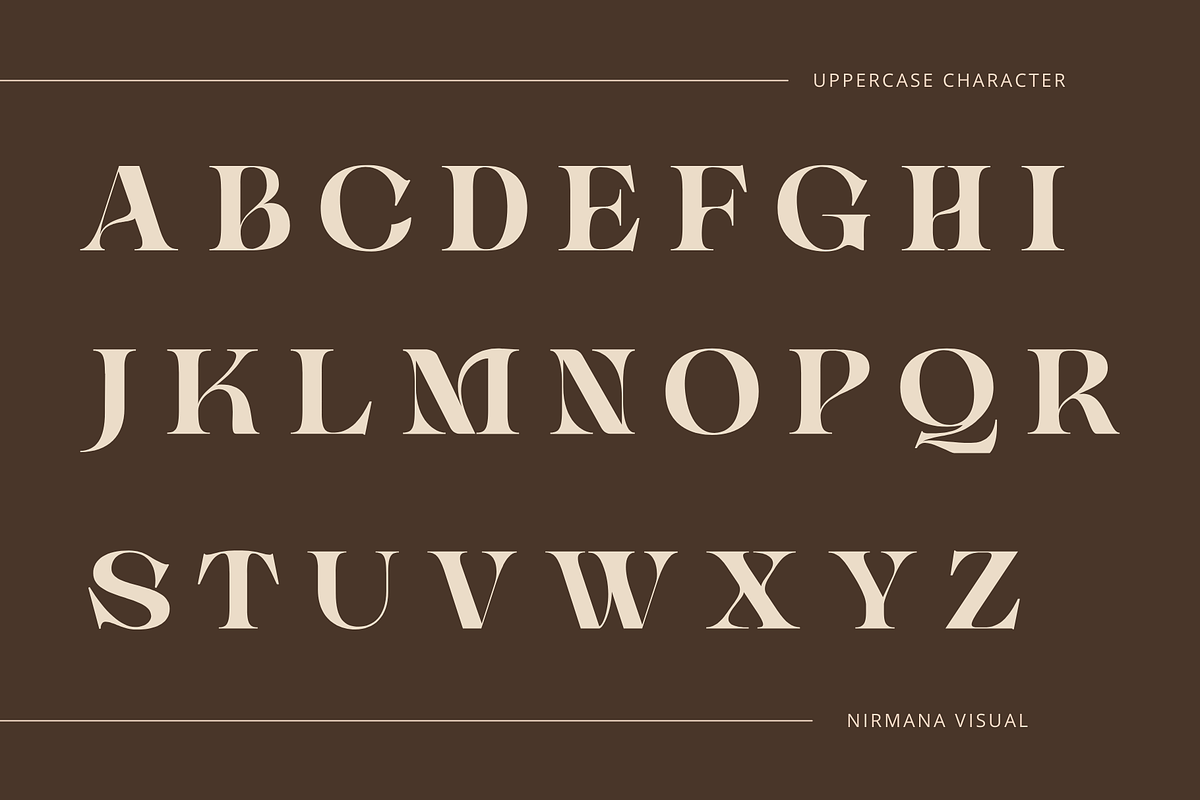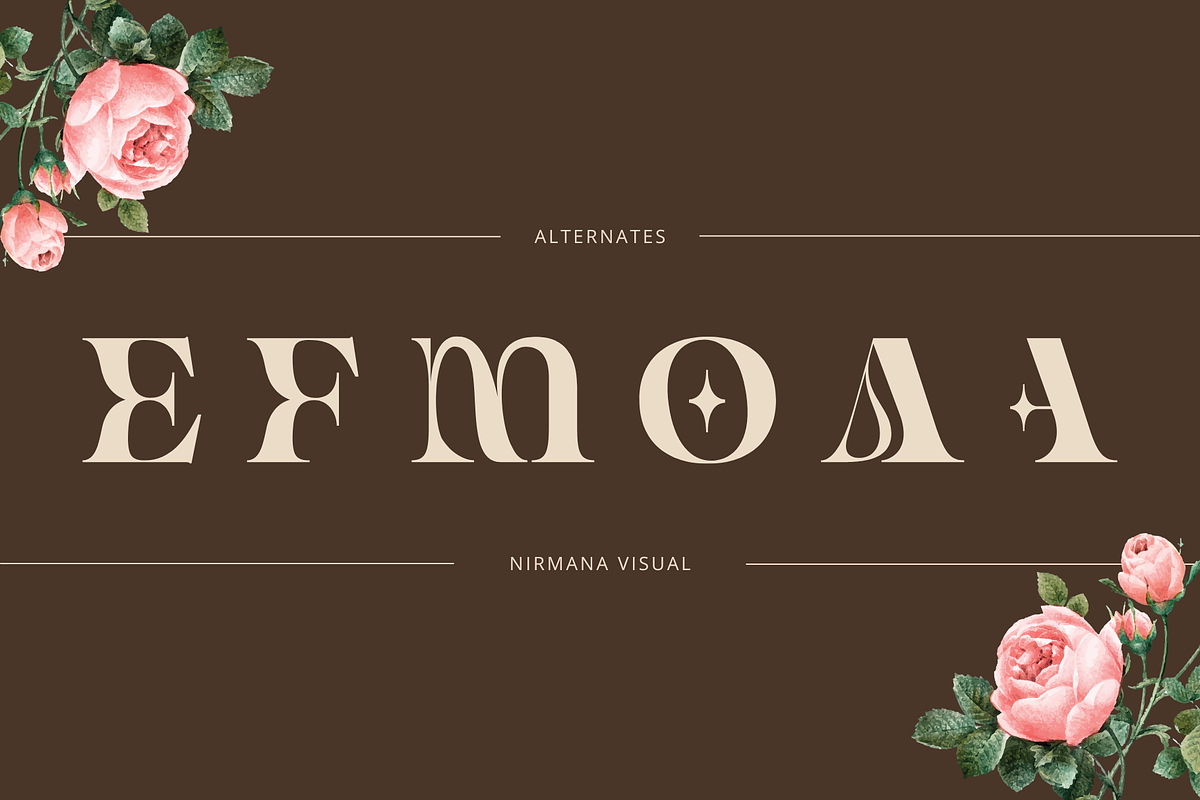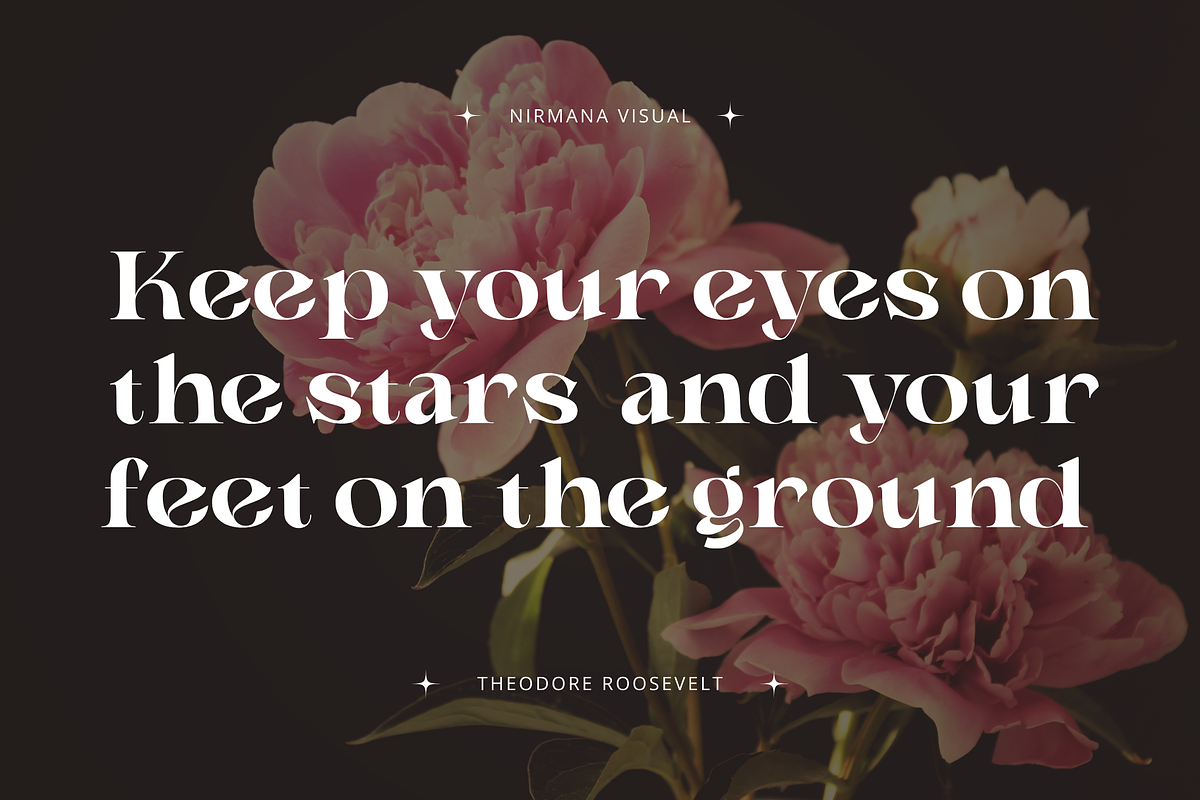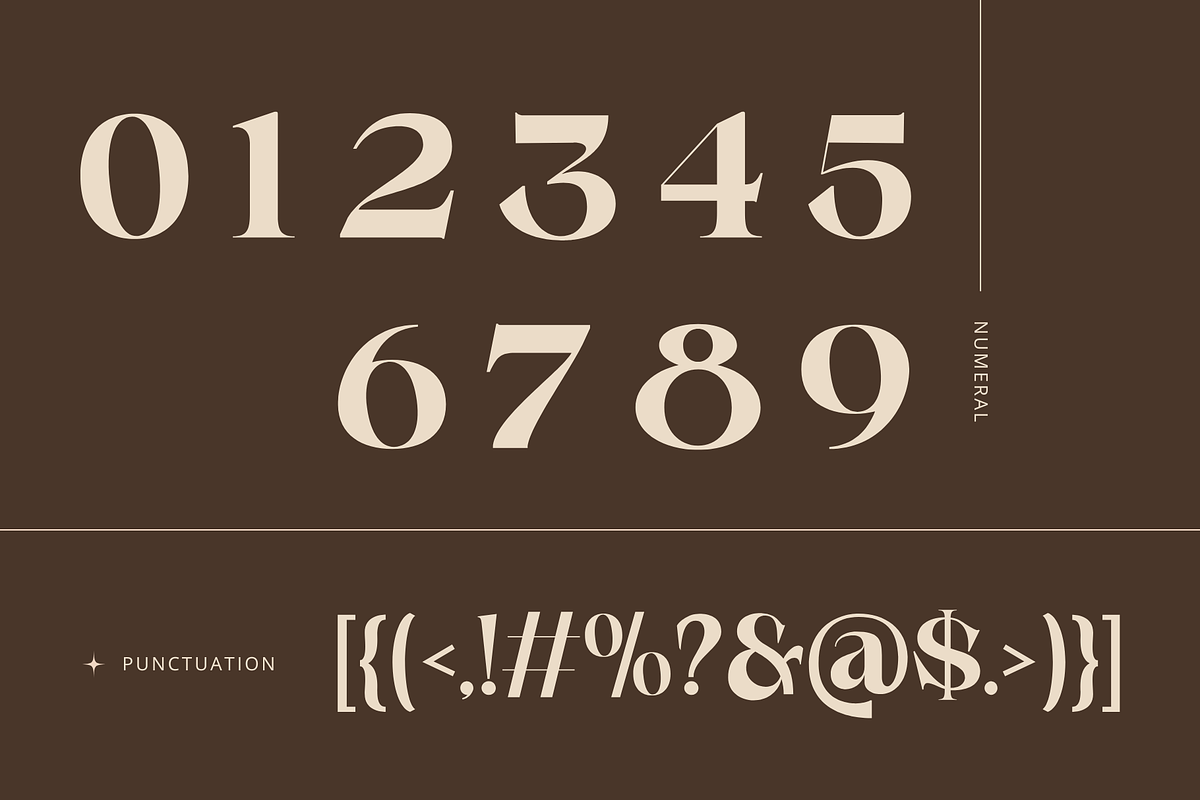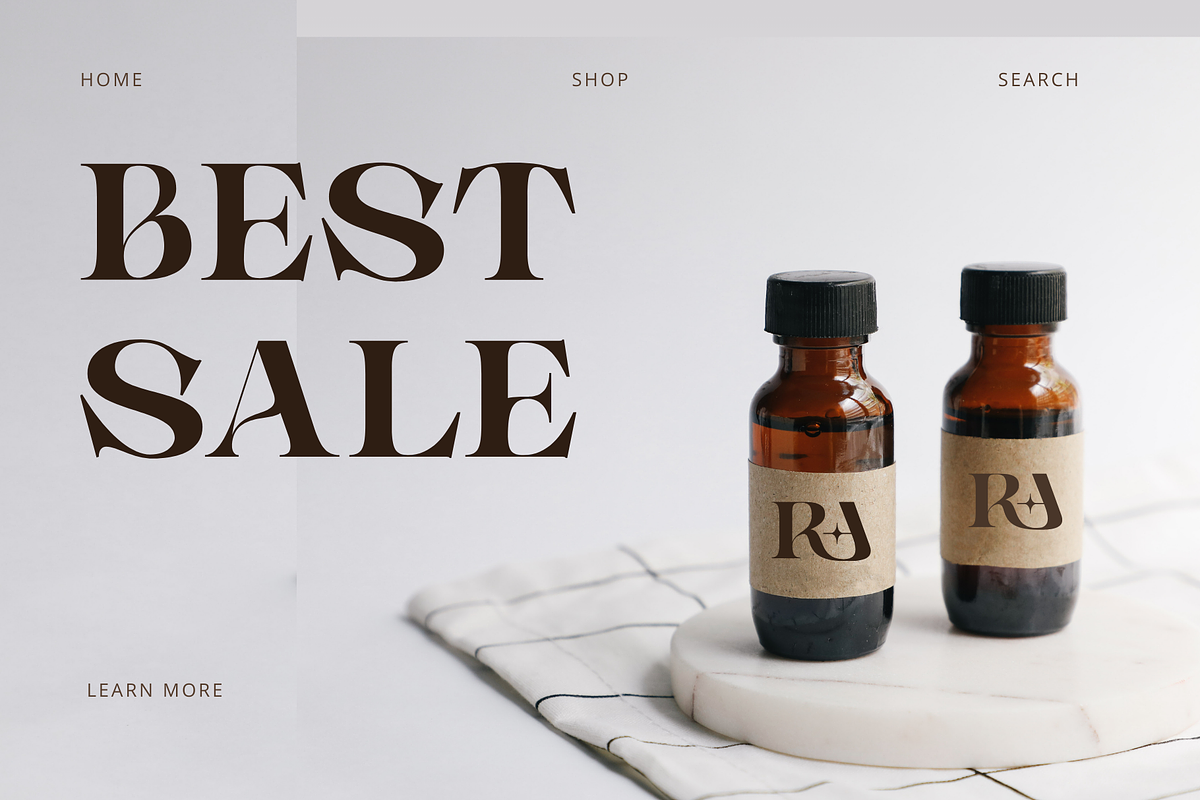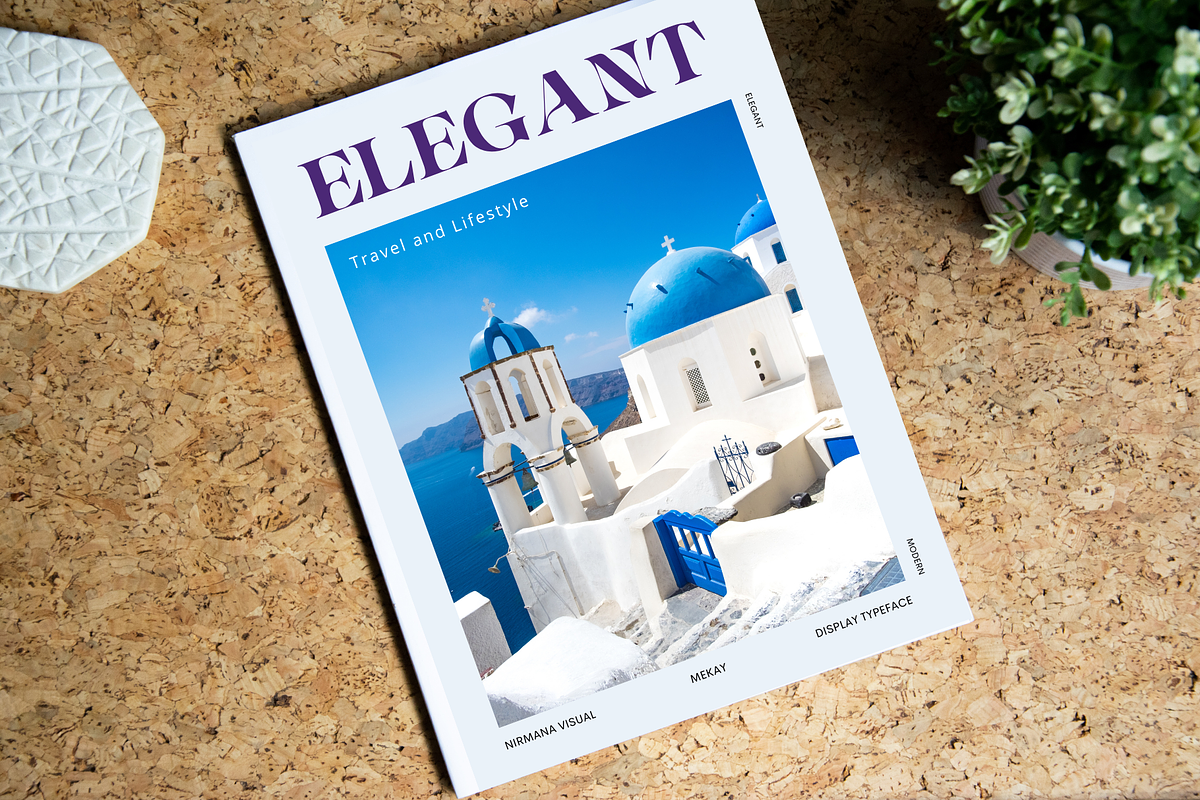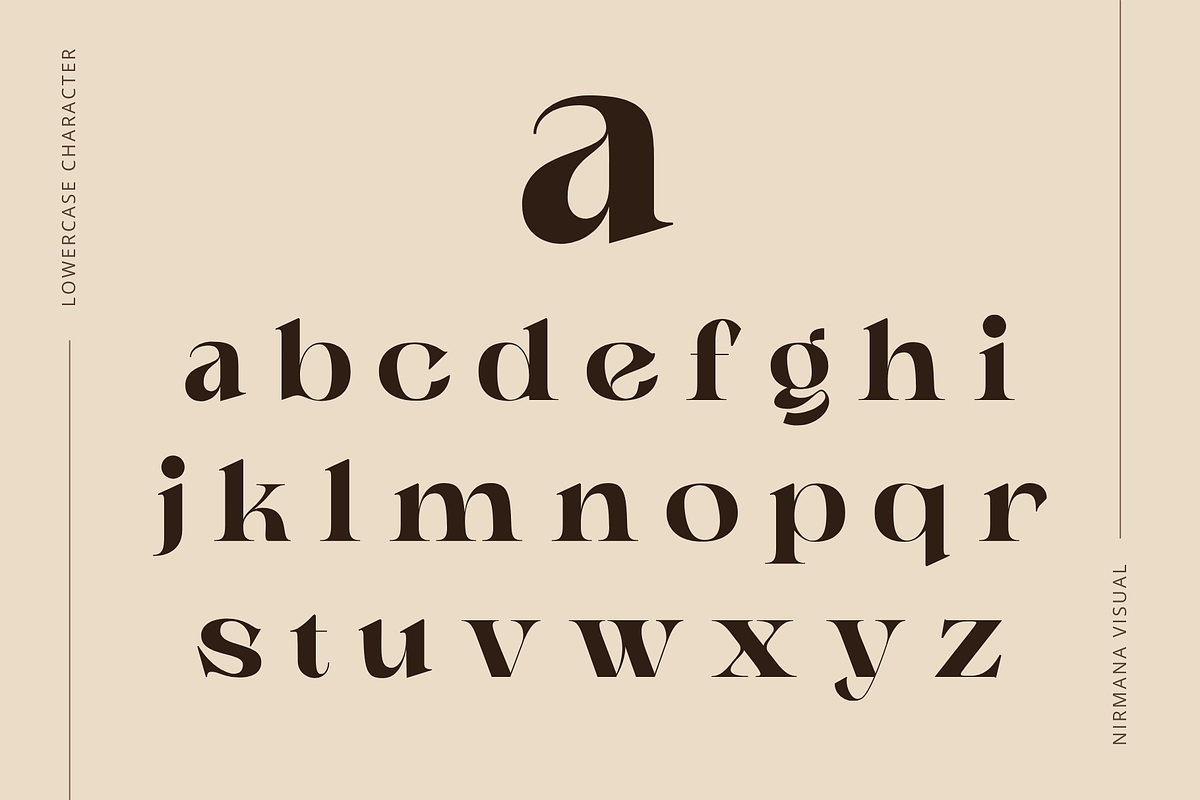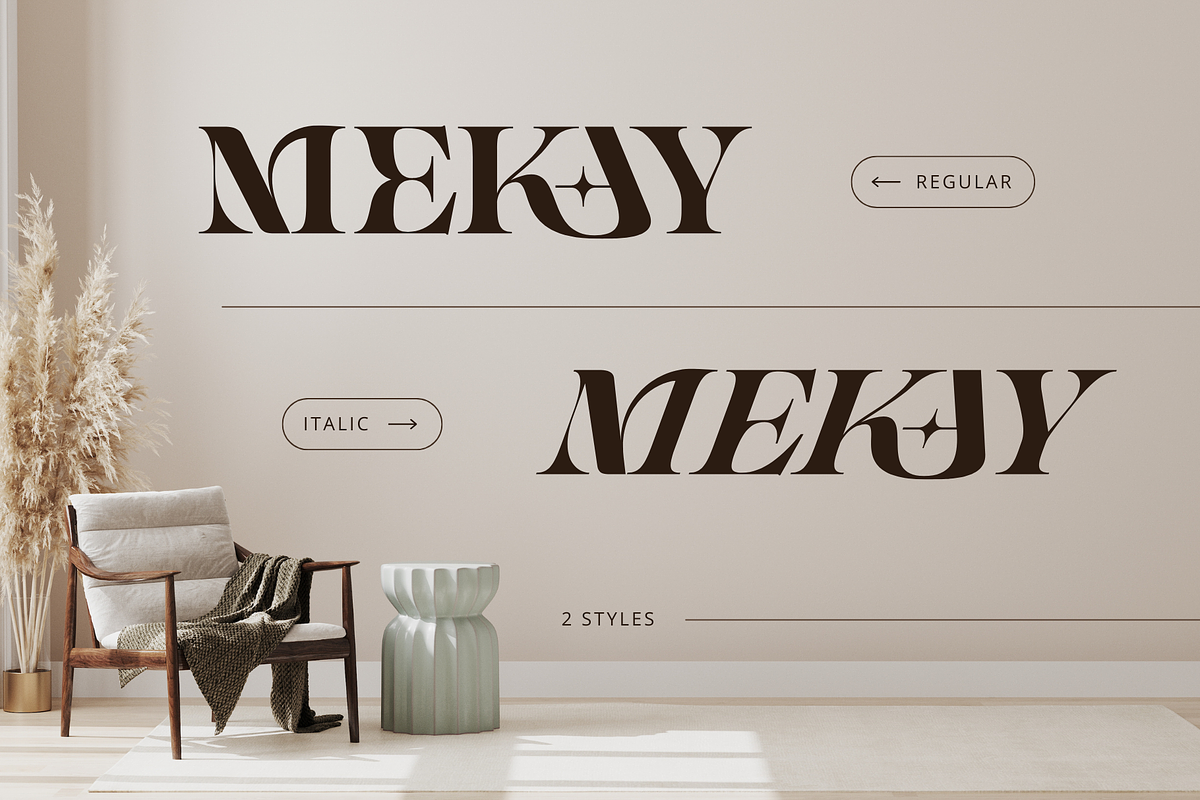
Mekay Vintage - Branding Logo Font
Mekay is a stylish vintage font designed to bring a classic, timeless feel to your logo and branding projects. With elegant curves and retro charm, it adds character and authenticity to any design. Perfect for vintage-themed brands, boutique logos, packaging, and more, Mekay blends old-school aesthetics with modern versatility, making your brand stand out with a touch of nostalgic flair.